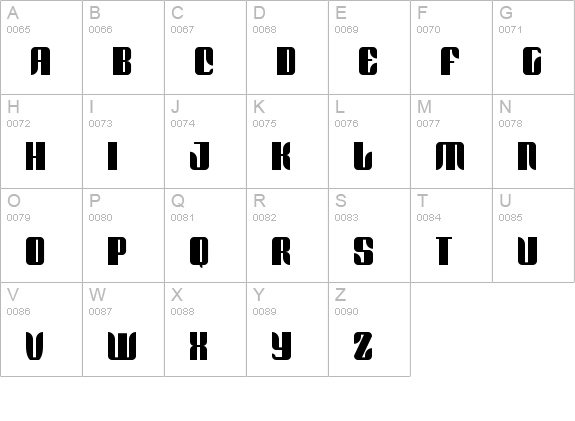
Redford BV Font Details
Redford BV is a beautifully crafted font that exudes elegance and sophistication. With its clean lines and stylish curves, this font is perfect for adding a touch of class to any design project. Whether you're creating a logo, designing a website, or working on a branding project, Redford BV is sure to impress. What sets Redford BV apart is not just its stunning aesthetics, but also the fact that it is freely available to download. That's right, you can enjoy this remarkable font without spending a dime. Thanks to FontsMarket.com, you can easily access Redford BV and add it to your font library. With its versatility and timeless appeal, Redford BV is suitable for a wide range of applications. From fashion and beauty to luxury brands and high-end products, this font will elevate your designs to new heights. Its legibility and balanced letterforms make it a great choice for both headlines and body text, ensuring that your message is conveyed with clarity and style. Redford BV is a true gem that combines modern design with a classic flair. Its sleek and sophisticated appearance makes it a standout choice for those who seek a font that is both refined and contemporary. Whether you're a professional designer or a DIY enthusiast, Redford BV will undoubtedly become a go-to font in your collection. So why wait? Take advantage of this incredible opportunity and download Redford BV for free at FontsMarket.com. Start adding a touch of elegance and sophistication to your designs today.